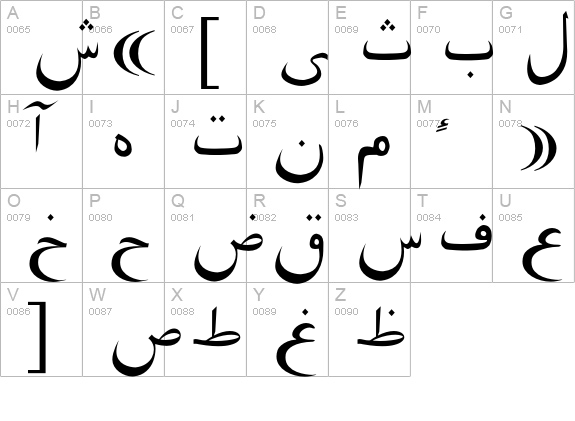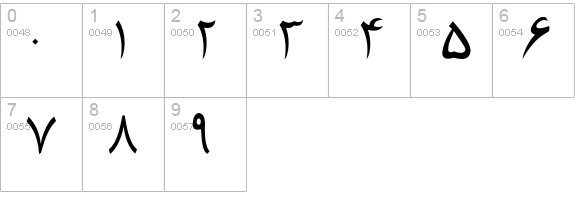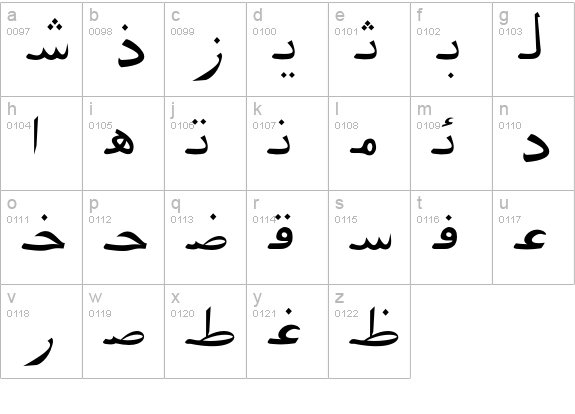
Pars Ziba - Draft Regular is the standard, neutral variant in the Pars typeface family \xE2\x80\x94 well suited to general body text, paragraphs, and standard typographic work.
Pars Ziba - Draft Regular font is a stunning typeface that effortlessly blends elegance with a touch of modernity. Its clean lines and well-defined characters make it perfect for a wide range of design projects, both digital and print. With its unique and eye-catching style, this font is sure to captivate and engage any audience. What sets Pars Ziba - Draft Regular font apart is its versatility. Whether you're creating a logo, designing a website, or working on a marketing campaign, this font will bring a sense of sophistication and professionalism to your work. Its bold and confident appearance makes it ideal for headlines and titles, while its legibility ensures easy readability even at smaller sizes. One of the most appealing aspects of Pars Ziba - Draft Regular font is that it is freely available to download at FontsMarket.com. This means that you can access this exceptional font without any cost, making it an excellent choice for both personal and commercial projects. With its wide range of weights and styles, you'll have all the flexibility you need to make your designs truly stand out. So, whether you're a graphic designer, a web developer, or simply someone looking to add a touch of elegance to your personal projects, Pars Ziba - Draft Regular font is a must-have. With its sleek aesthetics and effortless versatility, it is the perfect tool to elevate your designs to new heights. Download it for free at FontsMarket.com and unlock the infinite possibilities that this font has to offer.